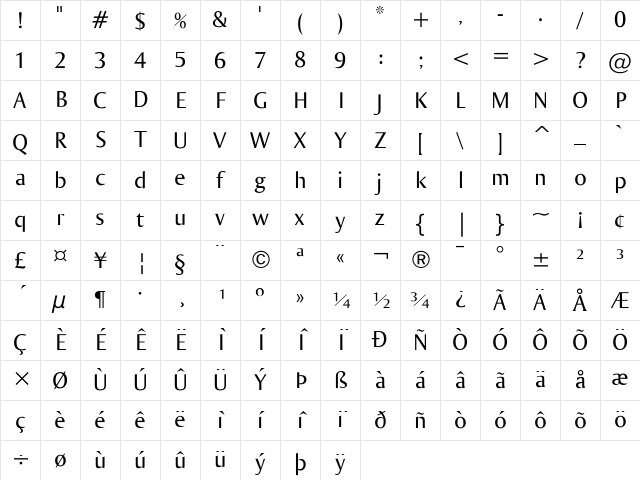
Ogirema Regular Free Font
Ogirema Regular
Design Context for Ogirema
Ogirema is a composed and adaptable typeface that performs quietly and consistently across a wide range of design contexts.